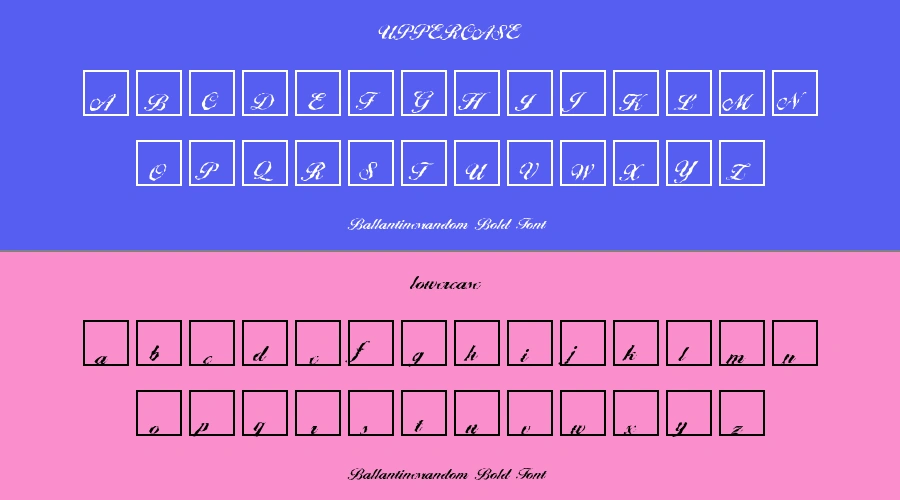
About Ballantinesrandom Bold Font
Ballantinesrandom Bold Font embodies typographic excellence through its masterful combination of harmonic curves and memorable presence. Created for technical manuals, this typeface delivers exceptional precision and aesthetic refinement across all applications. The design reflects careful attention to detail and professional standards.
Advanced capabilities include distinctive geometric precision and versatile word-end alternates, giving designers creative control. When used in white papers, Ballantinesrandom Bold Font exhibits remarkable detail preservation. The harmonious balance between stem weight and professional recognition sets this typeface apart.